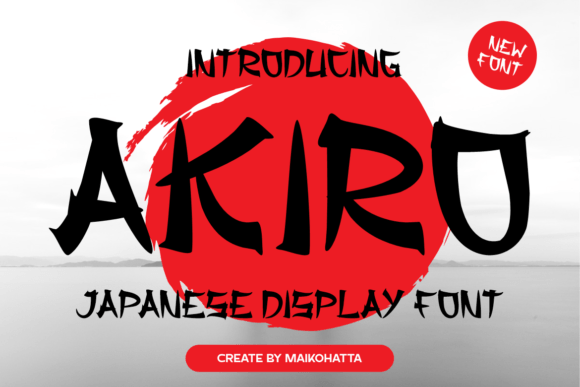
Akiro Font: Unveiling the Beauty of Japanese Typography
The world of typography is vast and diverse, with various fonts and typefaces that cater to different design needs and cultural contexts. Among these, Japanese fonts have gained significant popularity for their unique blend of aesthetics, cultural history, and versatility. One such font that has caught the attention of designers and crafters is the Akiro Font. In this article, we’ll explore the world of Akiro Font, its features, and what makes it a popular choice for designers.
The Significance of Japanese Fonts in Design
Japanese fonts have become an integral part of written communication, both in print and digital media. Their significance lies in their ability to create a unique and captivating impression on the audience. With a rich cultural history and beautiful aesthetics, Japanese fonts have become a popular choice for designers worldwide. Whether it’s for branding, advertising, or packaging, Japanese fonts offer a distinct look that sets them apart from other typefaces.
Introducing Akiro Font
Akiro Font is a stunning example of Japanese typography, characterized by its elegant and refined design. This font is a combination of traditional Japanese elements and modern design principles, making it a versatile choice for various design contexts. Akiro Font features beautiful curves, subtle strokes, and a unique balance of thick and thin lines, giving it a distinctive look that is both aesthetically pleasing and highly legible.
Key Features of Akiro Font
- Unique Glyphs: Akiro Font features a wide range of unique glyphs, including Hiragana, Katakana, and Kanji characters, making it an excellent choice for designers working on Japanese-language projects.
- High Legibility: The font’s design ensures high legibility, even at small font sizes, making it suitable for body text and captions.
- Versatility: Akiro Font can be used in various design contexts, from print to digital media, and is suitable for branding, advertising, packaging, and more.
- Cultural Significance: Akiro Font is deeply rooted in Japanese culture, making it an excellent choice for designers looking to create authentic and culturally relevant designs.
Design Applications of Akiro Font
Akiro Font’s versatility makes it an excellent choice for various design applications. Some of the most popular uses of this font include:
- Branding and Logo Design: Akiro Font’s unique and elegant design makes it an excellent choice for branding and logo design, particularly for Japanese-language brands.
- Advertising and Marketing: The font’s high legibility and aesthetic appeal make it suitable for advertising and marketing materials, such as posters, flyers, and brochures.
- Packaging Design: Akiro Font’s cultural significance and unique design make it an excellent choice for packaging design, particularly for products targeting Japanese consumers.
- Digital Media: The font’s versatility extends to digital media, including website design, social media graphics, and mobile apps.
When working with Akiro Font, here are some tips to keep in mind:
- Pair with Other Fonts: Akiro Font can be paired with other fonts to create a unique and visually appealing design.
- Experiment with Font Sizes: The font’s high legibility makes it suitable for use at various font sizes, from headings to body text.
- Respect Cultural Significance: When using Akiro Font, it’s essential to respect its cultural significance and use it in a way that is authentic and culturally relevant.
Akiro Font is a stunning example of Japanese typography, offering a unique blend of aesthetics, cultural history, and versatility. With its elegant design, high legibility, and cultural significance, this font has become a popular choice for designers and crafters worldwide. Whether you’re working on a branding project, advertising campaign, or packaging design, Akiro Font is an excellent choice for creating a unique and captivating impression.